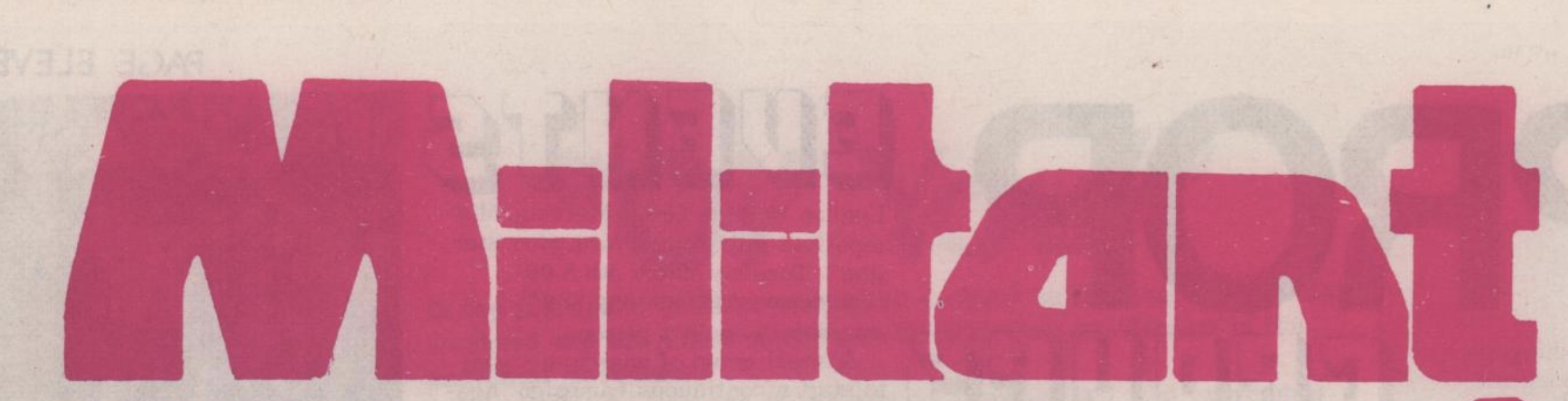
Does anyone recognize this font from a 1985 issue of BYTE computer magazine?
This example comes from a 1985 issue of BYTE computer magazine. I have checked various font ID websites and tools, with no luck thus far. I recognize that the two lower case t's in the word are different, so I highly suspect this to be a custom font, however I am hopeful there is a pre-existing font this is based off of, or something at least very similar to this example. Any leads would be greatly appreciated! Thanks in advance.